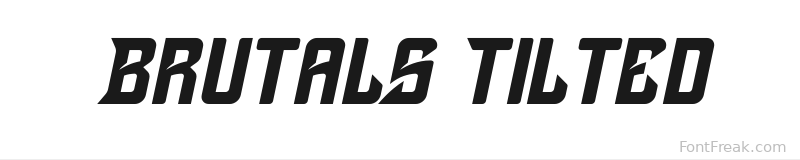
Brutals Tilted
Brutals Tilted by Kong Font is a striking display font that captures attention with its unique, bold style. This font fits into the category of decorative typefaces, characterized by its dynamic and angular forms that create a sense of movement and energy. The stroke weight is consistently thick, providing a strong visual presence, while the tilted aspect enhances its dynamism, making it ideal for projects that require a robust and modern touch.
Visually, Brutals Tilted features sharp angles and distinctive letterforms that convey a sense of edginess. The contrast between the thick strokes and the negative spaces adds to its dramatic flair, making it not only eye-catching but also highly legible at various sizes. The spacing is well-balanced, ensuring that each character stands out without feeling overcrowded, which is essential for maintaining clarity in design.
This font is perfect for a variety of applications, including eye-catching movie posters that demand a strong title presence, bold restaurant menus that invite patrons in with their unique style, and high-energy branding materials for small businesses looking to make a lasting impression. Additionally, it can be effectively used in event promotions, such as music festivals or art shows, where a vibrant and modern aesthetic is desired.
Targeted primarily at graphic designers, small business owners, and content creators, Brutals Tilted offers a fresh alternative to traditional typefaces. The Brutals Tilted font free download makes it accessible for those looking to elevate their design projects without the constraints of a paid license. This font stands out in a crowded market due to its unique character and versatility, ensuring that any project it graces will leave a lasting impression.